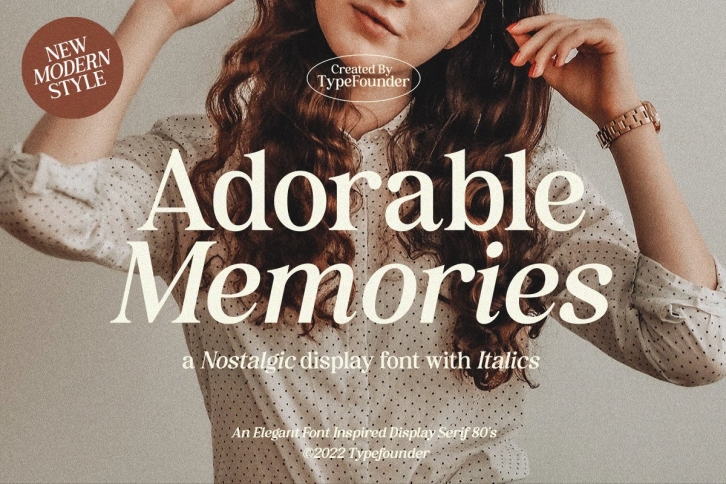
Adorable Memories is a nostalgic serif typeface that looks incredible in both large and small settings. Its distinct and well-balanced letters make this font a masterpiece. Fall in love with its incredibly versatile style and use it to create spectacular designs!